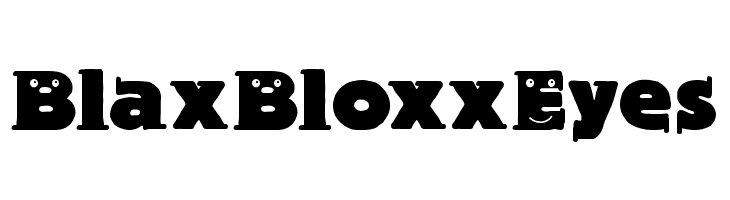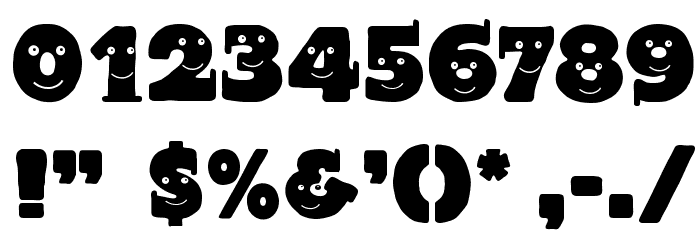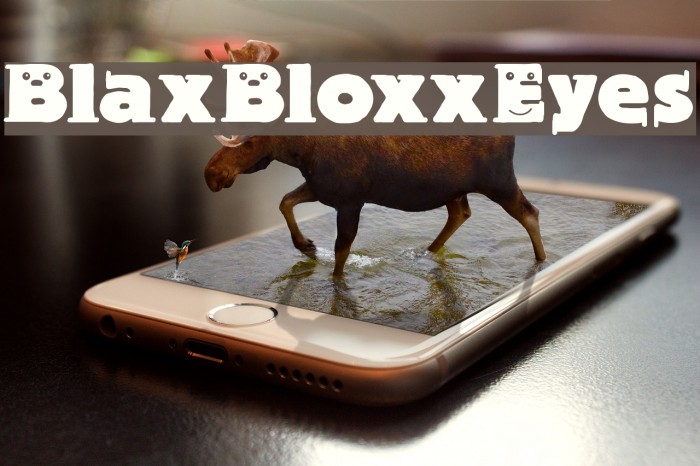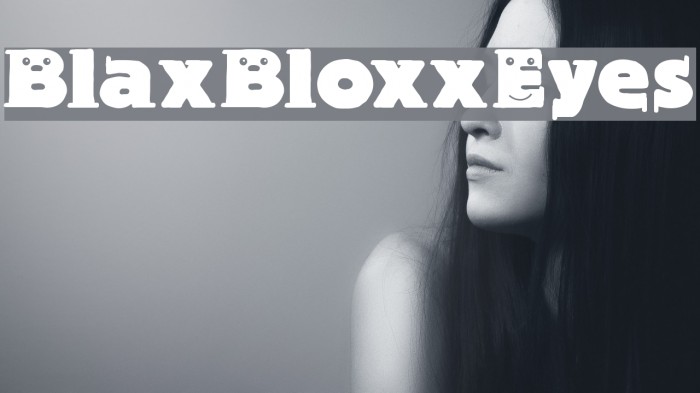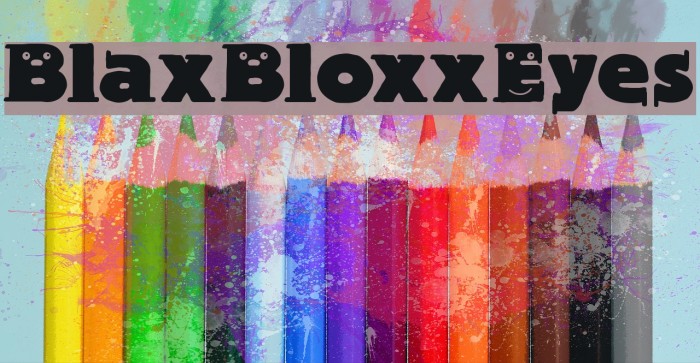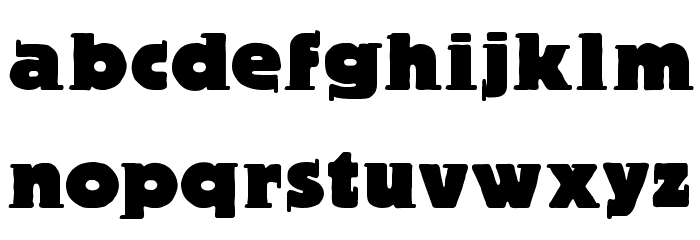
BlaxBloxxEyes Font
This playful and bold font features a unique design where each character is adorned with eye-like shapes, giving it a whimsical and animated appearance. The letters are thick and rounded, contributing to a friendly and approachable feel. The uppercase and lowercase letters maintain a consistent style, with the numbers and special characters also incorporating the eye motif. This font is perfect for projects that require a fun and engaging aesthetic, such as children's books, playful branding, or creative posters.
A bold, playful font with eye-like designs on each character.
• Proposed Projects: Ideal for children's books, playful branding, creative posters, and any project needing a fun, engaging look.
• Category: Decorative/Display
• Bold: Yes
• Italic: No
• Weight: Bold
• Width: Normal
• Character Spacing: Normal
• Contrast: Low
• Overall Style: Playful, Whimsical
• Use Case: Headlines, Logos, Posters